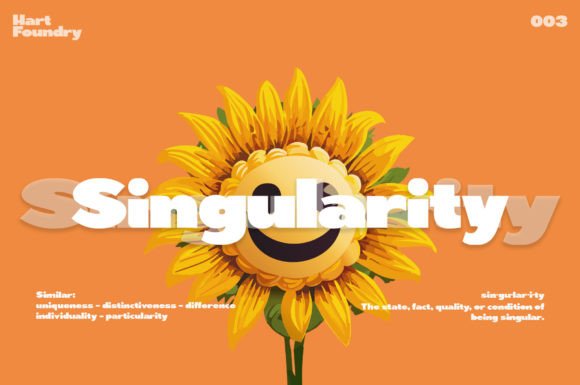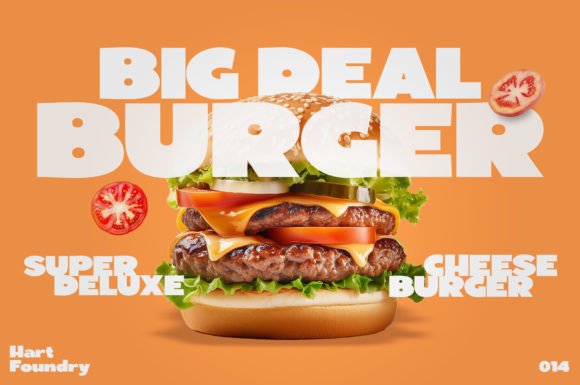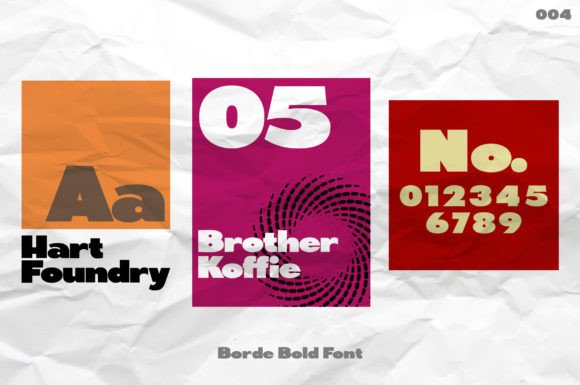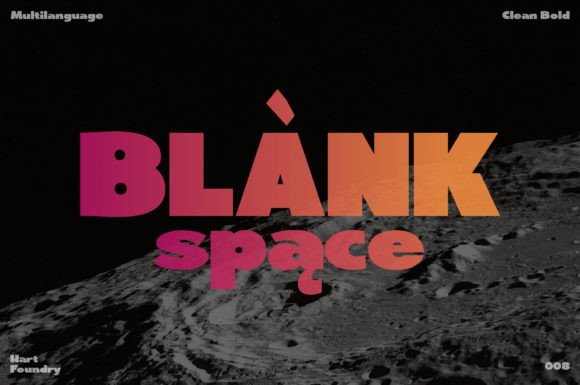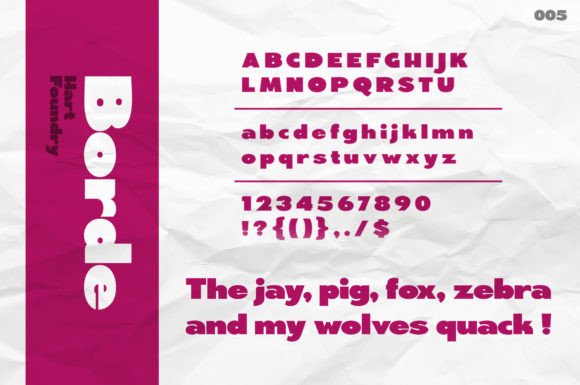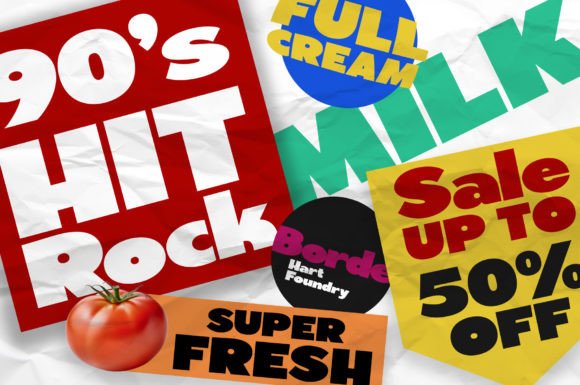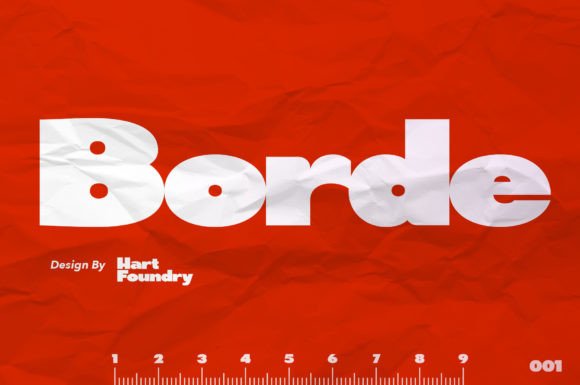
The Power of Borde Font: Elevate Your Designs with a Thick, Clean, and Simple Look
I’ll never forget the time I was working on a project for a client’s vintage-inspired clothing line. I had a clear vision of the design, but something was missing – the perfect font. I scoured the internet, tried out countless fonts, but none seemed to capture the essence of the brand. That was until I stumbled upon Borde Font. With its thick, clean, and simple look, it instantly elevated my design and exceeded my client’s expectations.
What Makes Borde Font Special?
Borde display font is a game-changer for designers, crafters, and creative hobbyists. Its bold, hand-crafted look makes it perfect for designing T-shirts, hoodies, tote bags, and other merchandise. The font’s versatility allows you to create various designs with your unique style, from modern to retro.
- ✨ **Clean and Simple Design**: Borde Font boasts a crisp, clean design that looks great on various merchandise.
- ✅ **Highly Versatile**: The font can be used for both modern and retro designs, making it a great addition to your font library.
- 💡 **Easy to Read**: The thick font ensures that your text is easily readable, even from a distance.
- ⚠️ **Not Suitable for Body Text**: Due to its bold nature, Borde Font is best used for headlines or titles, rather than body text.
The Designer Inspiration Behind Borde Font
Borde Font was inspired by the works of renowned designers who sought to create a font that was both bold and elegant. The font’s creator drew inspiration from vintage typography and modern design trends to craft a unique and versatile font.
Q: What is Borde Font best used for?
A: Borde Font is best used for designing merchandise, such as T-shirts, hoodies, and tote bags, that require a bold and eye-catching look.
Q: Is Borde Font suitable for body text?
A: No, Borde Font is best used for headlines or titles, rather than body text, due to its bold nature.